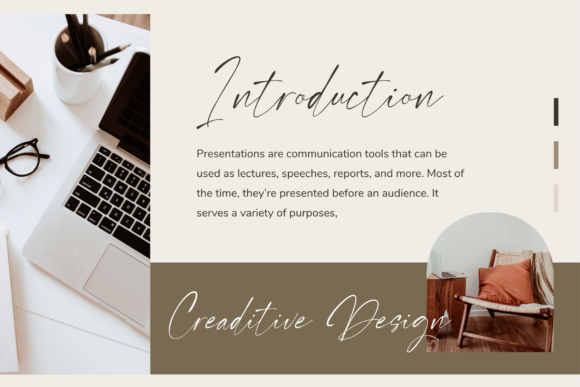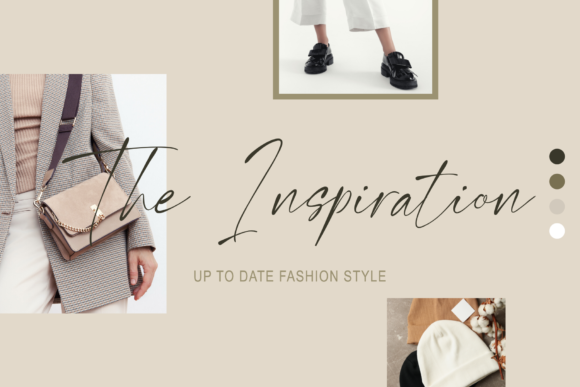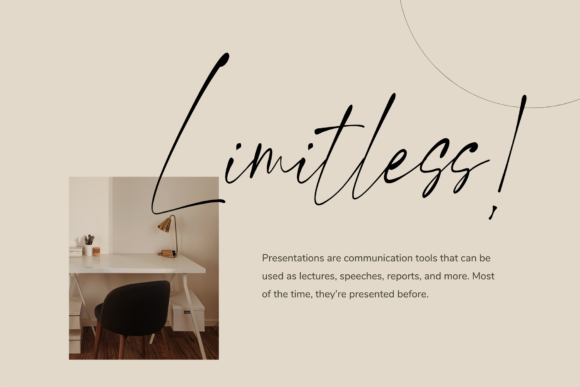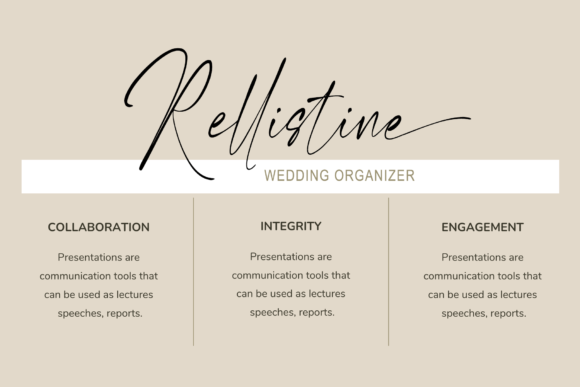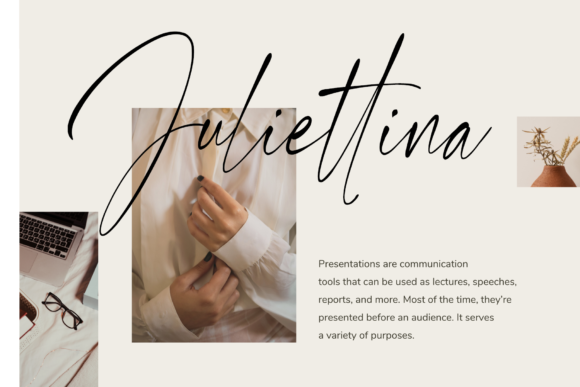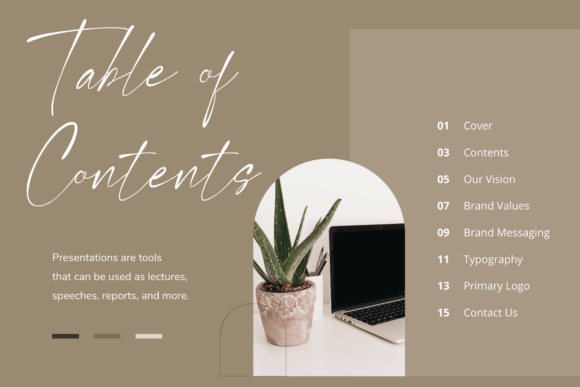
Introduction to Kallisty Font
Kallisty is a thin lettered and graceful script font.
Fall for its ravishing style and use it to create gorgeous wedding invitations, beautiful stationary art, eye-catching social media posts, and much more Kallisty is PUA encoded which means you can access all glyphs and swashes with ease.